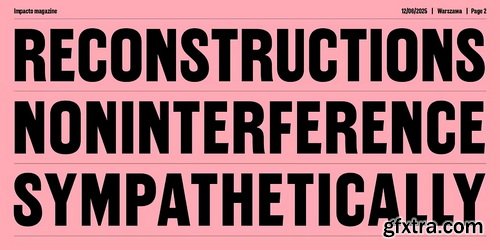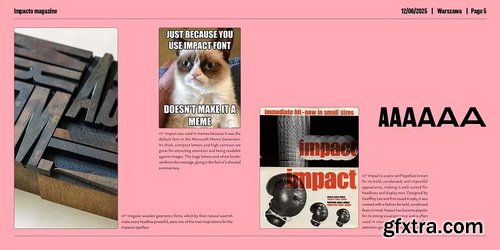
- Impacto is a headline typeface inspired by the traditional wooden fonts of the 20th century – monumental, often imperfect, but full of character. The starting point was a fascination with the blocky geometry of old print – the large, heavy letters used in affishes, posters and newspaper headlines. In Impacto, however, this classical form has been deliberately disrupted: some of the proportions are “wrong”, the details too harsh, the rhythm uneven. These non-ideal decisions are a conscious choice – a reminder of the physical work of type designers ine the past, the randomness of the impact, the wear and tear of the dies. The typeface balances between the order of construction and the chaos of gesture, between digital precision and analogue error. It's not top-right geometry – it's letters with history, with grain, with roughness. Ideal for headlines where strength, texture and clarity are needed. The overall design consists of 5 width variations and a variable font variant.